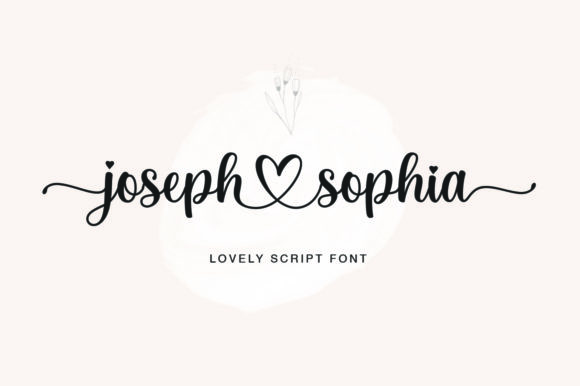
Looking for a font that is both charming and elegant? Look no further than the Joseph Sophia Font, part of the script font family and created by the renowned Fargunstudio. Perfect for those looking for a font for invitation envelopes, Joseph Sophia is a must-have for any designer who wants to add a handwritten touch to their work.
Joseph Sophia is versatile and can be used for a variety of design projects, including wedding invitations, thank you cards, quotes, greeting cards, logos, business cards, and more. Its varying baseline and smooth lines make it a stunning addition to any design project.
One of the standout features of Joseph Sophia is that it is PUA encoded. This means that users can easily access all of the glyphs and swashes that this font has to offer. With gorgeous glyphs and stunning alternates, Joseph Sophia is sure to capture the attention of anyone who sees it.
If you're looking for a font that is both unique and eye-catching, Joseph Sophia is the perfect choice. Its elegance and charm make it ideal for any design project that requires a handwritten touch. So why wait? Download Joseph Sophia today and take your designs to the next level!